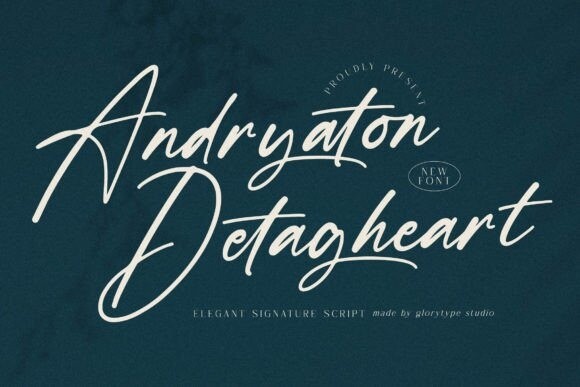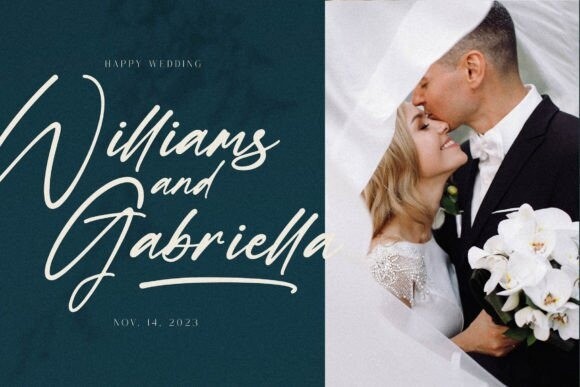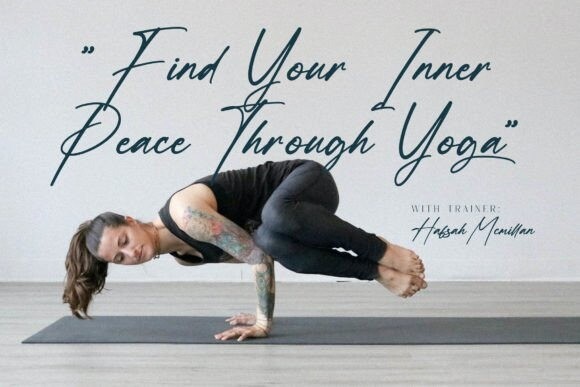
Andryaton Detagheart Font
Andryaton Detagheart Font – Elegant Signature Script suitable for any projects such as logos, branding projects, homeware designs, product packaging, mugs, quotes, posters, shopping bags, t-shirts, book covers, name cards, invitation cards, greeting cards, labels, photography, watermark, special events, and all your other lovely projects that need a beautiful script taste.